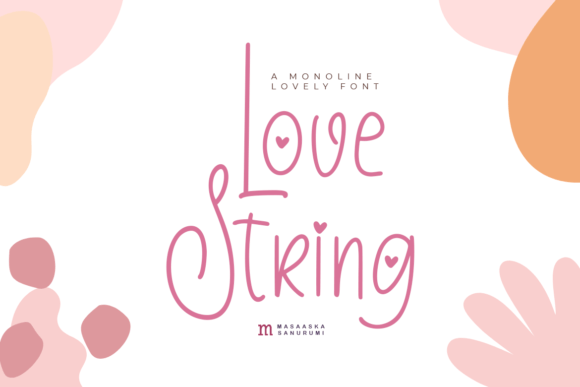
In the realm of calligraphy, Love String Font stands as an enchanting creation, a symphony of strokes that weaves a tale of elegance and charm. Inspired by the heartfelt essence of love, this script font exudes a timeless allure, capturing the essence of romance and delicate emotions.
With its graceful curves and delicate lines, Love String Font dances across the page like a love letter penned with the utmost care. Each character carries a story, an ode to the beauty of human connection. Whether it's for wedding invitations, heartfelt cards, or any endeavor that calls for a touch of grace, Love String Font is your perfect companion.
Born from the creative mind of Masa Aska Sanurumi, this monoline font is a testament to the power of simplicity and style. Its uncluttered design allows the beauty of each letterform to shine, creating a visual harmony that is both captivating and inviting.
Love String Font is not merely a collection of letters; it's a gateway to a world of artistic expression. It transforms ordinary words into works of art, adding a touch of sophistication to your designs. Whether you're a seasoned graphic designer or simply someone with a passion for creating beautiful things, this font will elevate your projects to new heights.
Imagine the joy of crafting wedding invitations that reflect the unique love story of each couple. The flowing lines of Love String Font will carry their names and heartfelt messages with grace and elegance. Or picture the delight of creating DIY projects that exude a personal touch, where each letter is a testament to your creativity.
Love String Font is more than just a font; it's an invitation to embark on a journey of artistic exploration. With its versatility and timeless charm, it will become your go-to choice for any project that demands a touch of sophistication and timeless beauty.